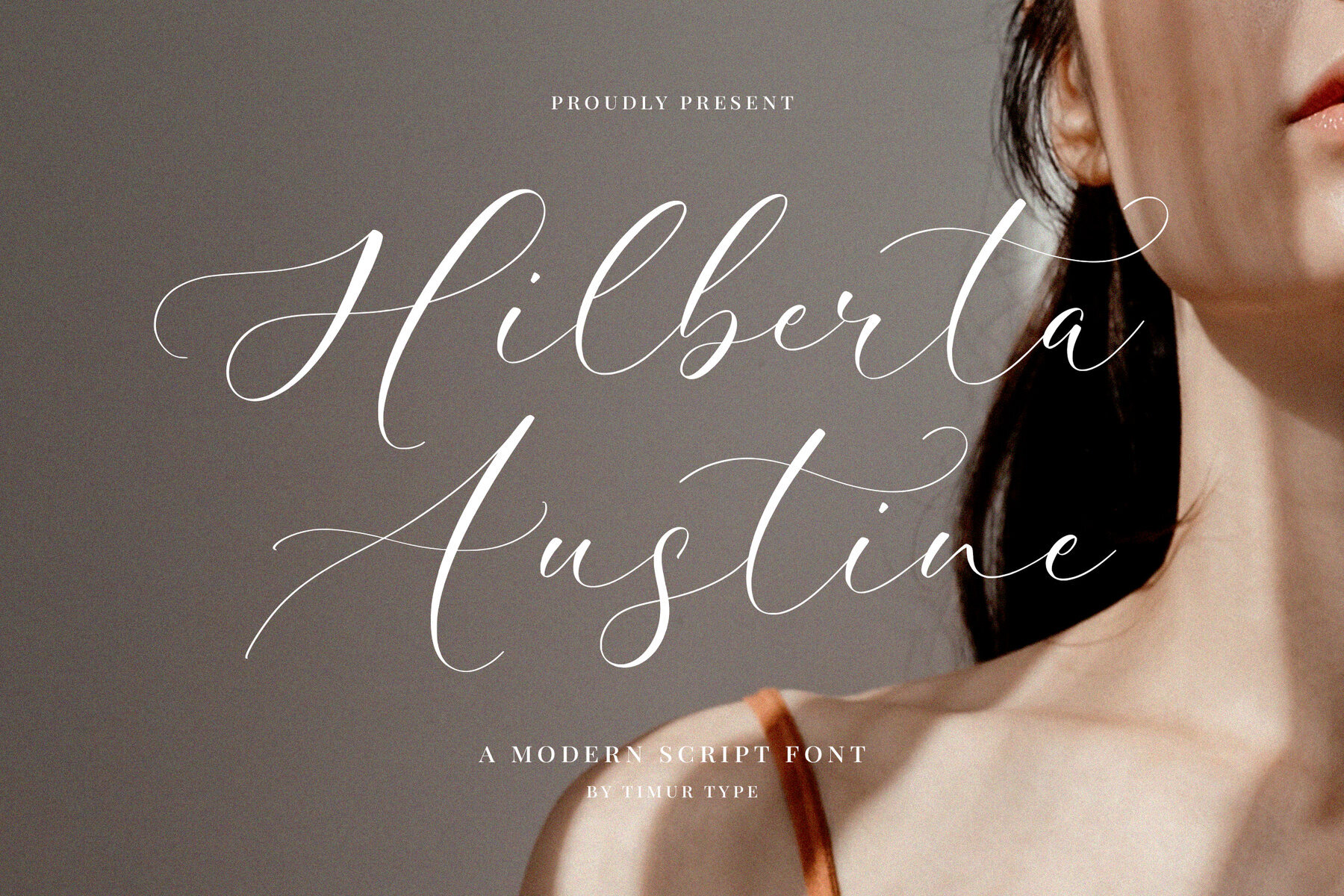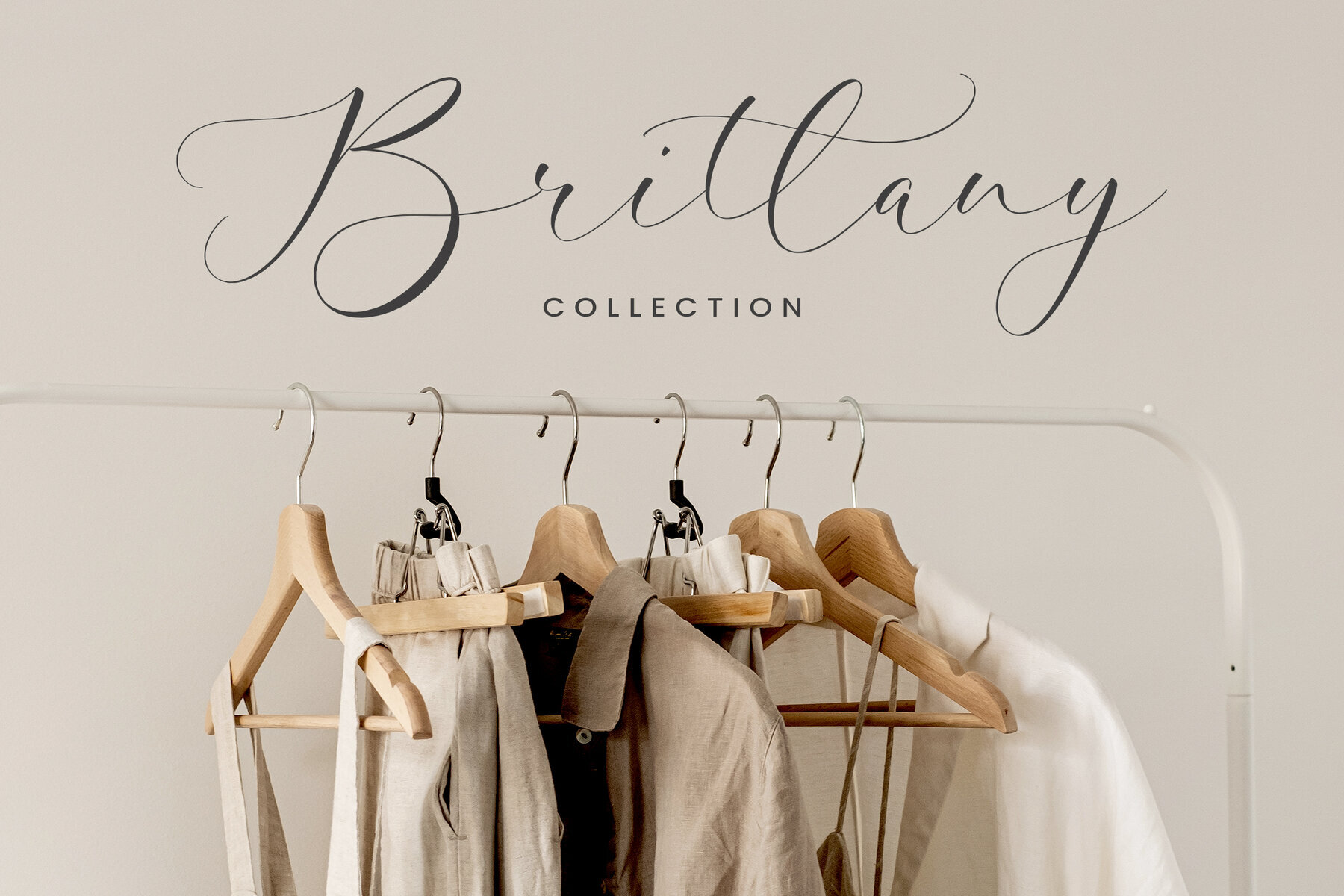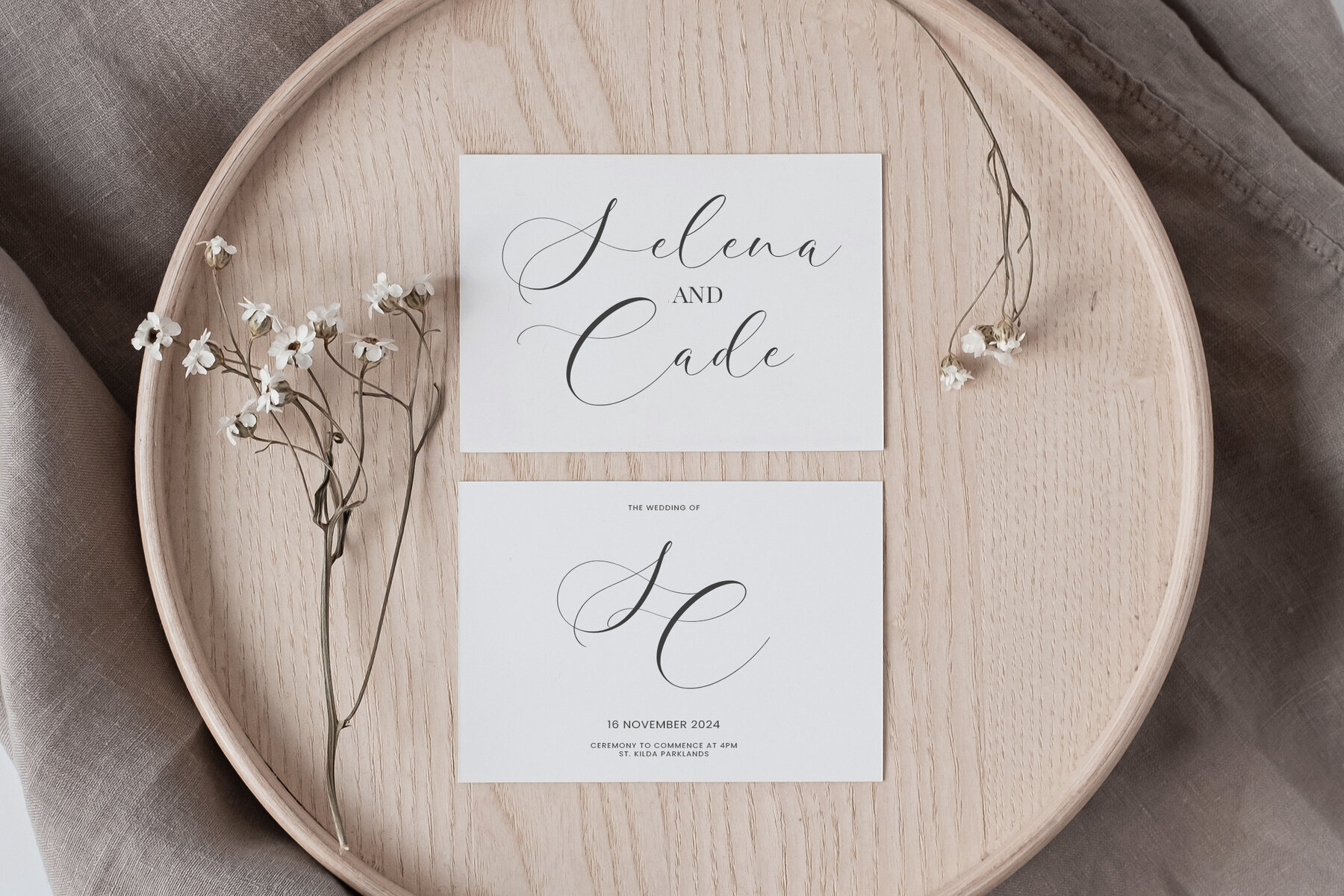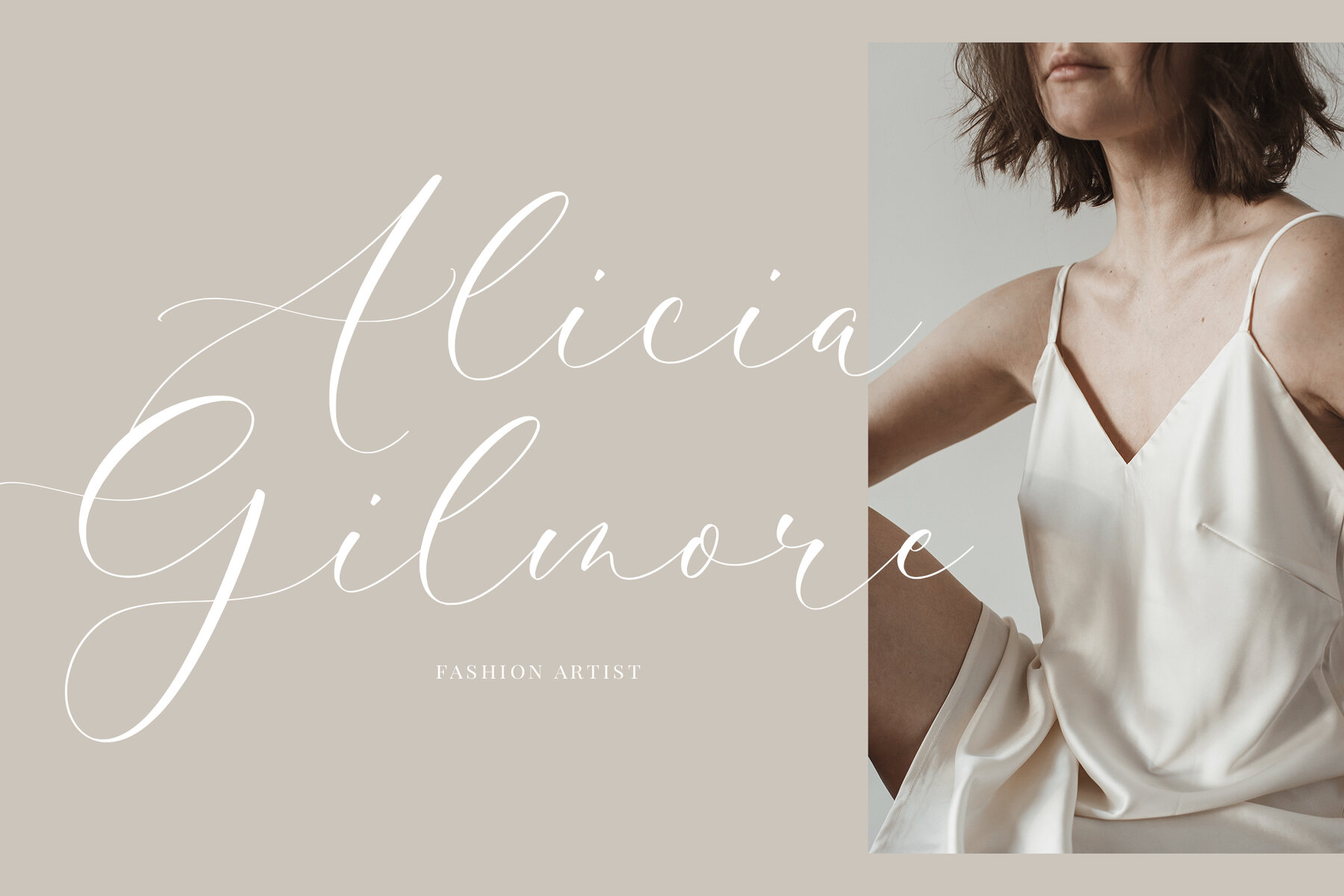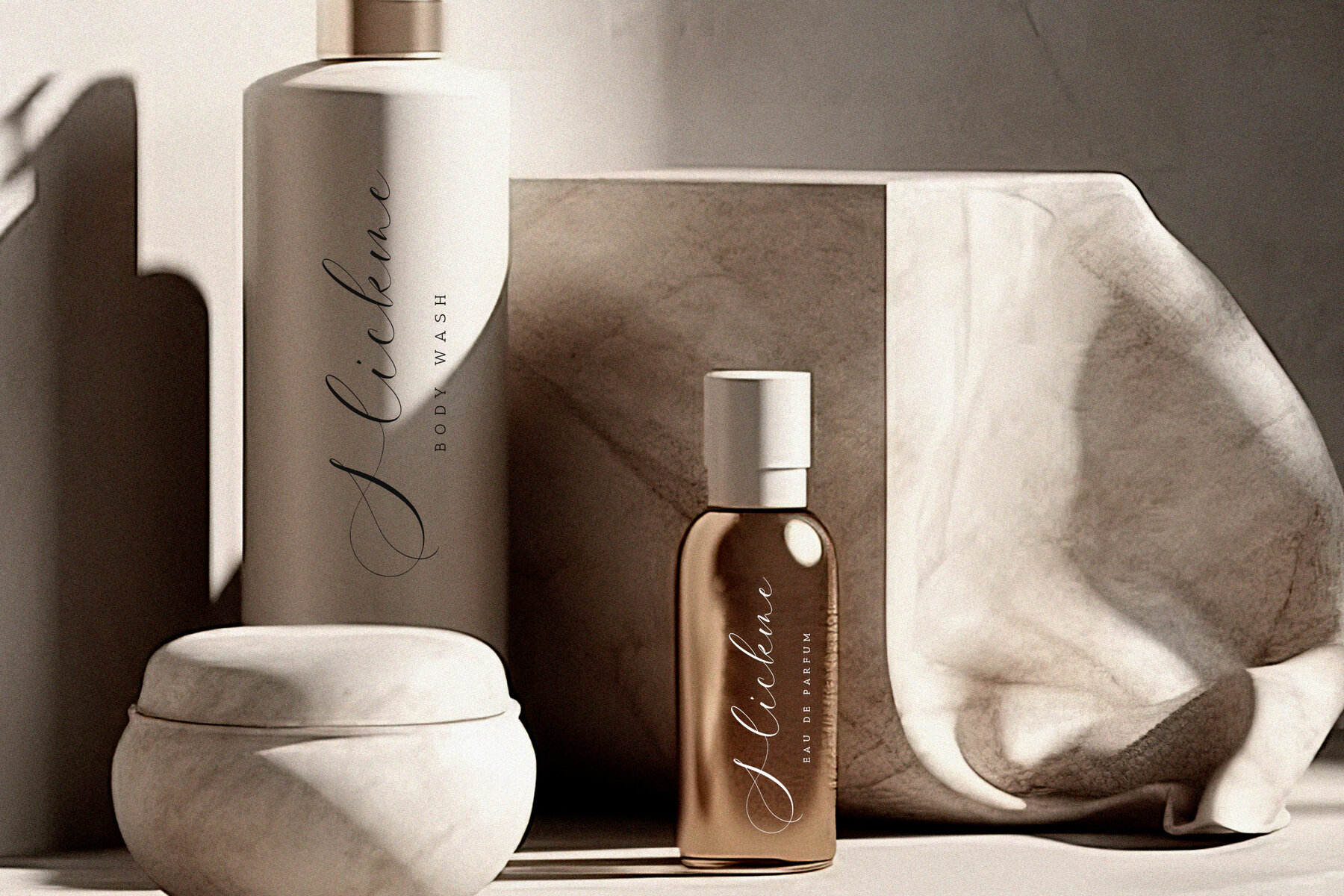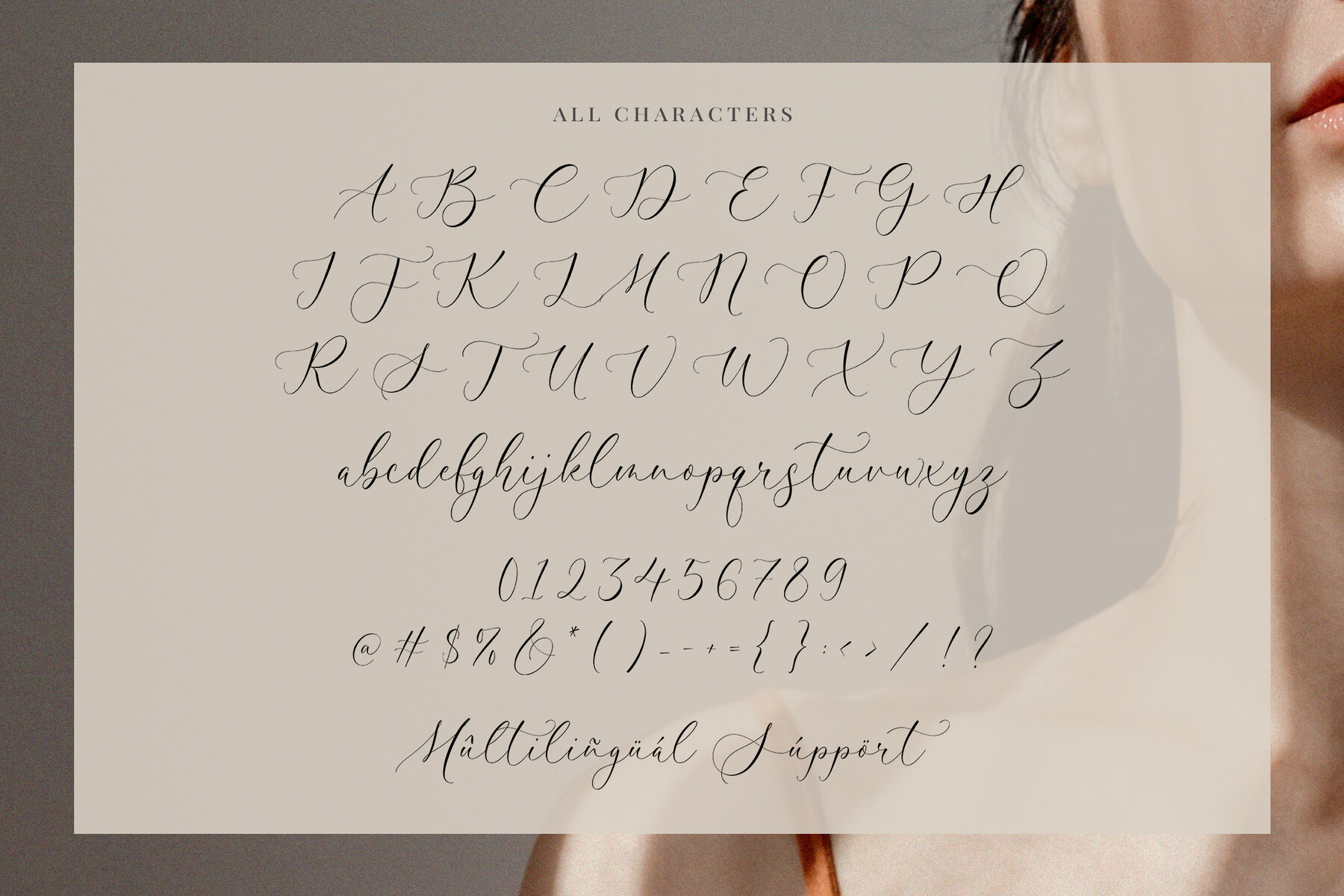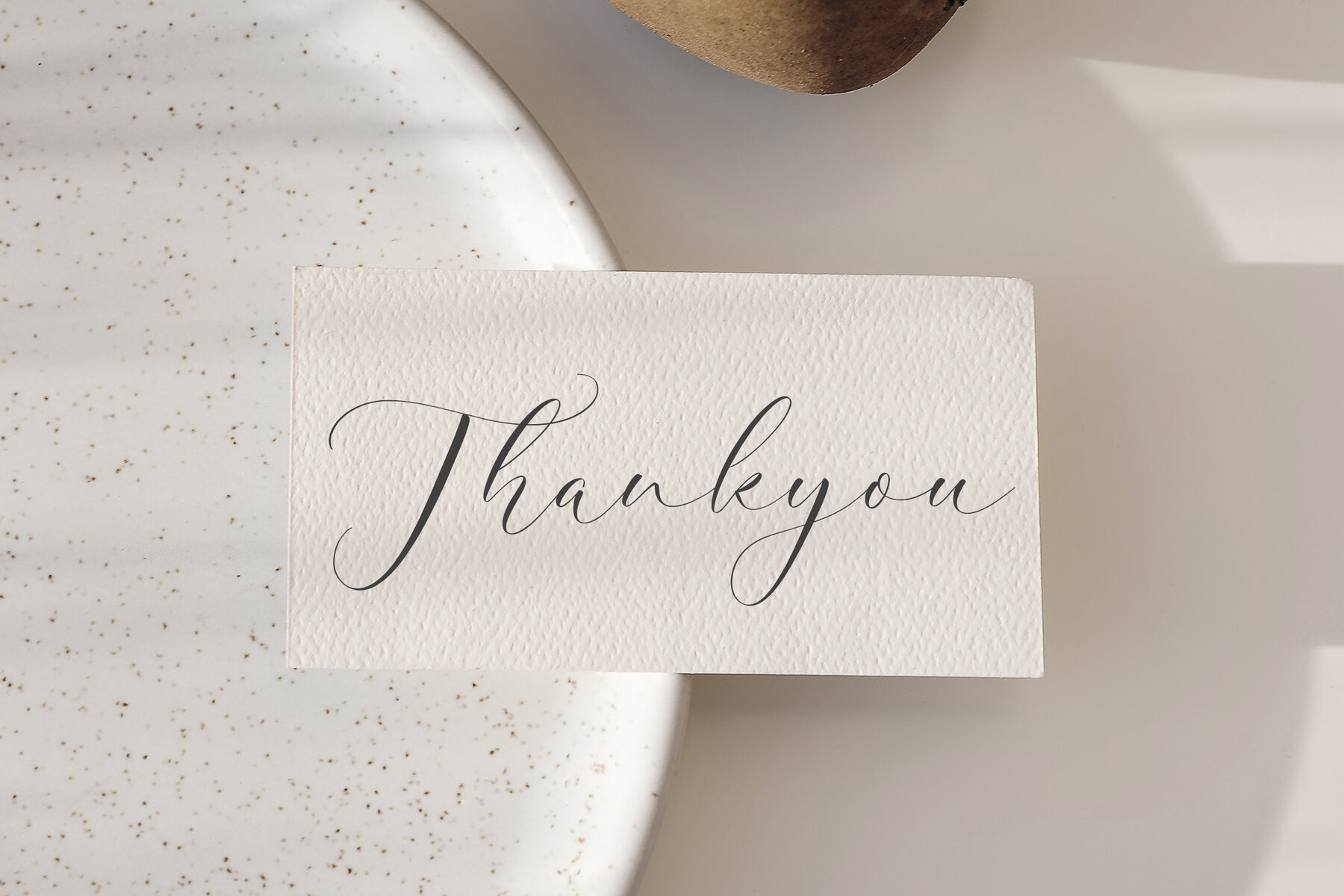
Hilberta Austine Font
Hilberta Austine
Hilberta Austine is a modern script font that transforms written words into visual masterpieces. Each letter is a meticulously crafted brushstroke, creating a narrative of sophistication and elegance. The font's graceful curves and intricate details add a touch of luxury, turning every word into a work of art.
Ideal for a range of design projects, Hilberta Austine's elegant and eye-catching strokes redefine the art of typography. Its unique design makes it perfect for branding, invitations, and any project that requires a sophisticated and artistic touch. Experience the art of modern script fonts with Hilberta Austine.